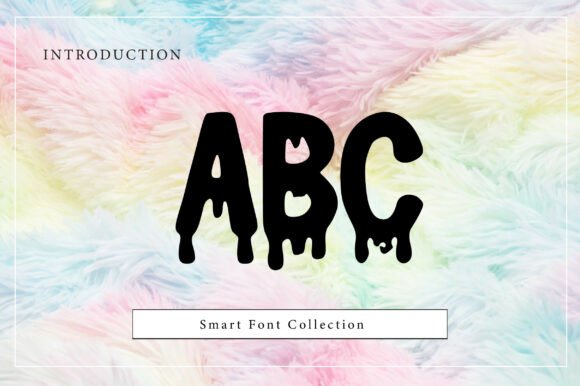
Unleash the Power of Driping Paint Font: Elevate Your Designs with a Raw, Liquid Energy
Are you tired of using the same old fonts in your designs? Do you want to add a touch of edginess and creativity to your projects? Look no further than the Driping Paint font, a bold and artistic display typeface from the Smart Font Collection. This font is designed to capture the realistic aesthetic of wet, running ink or thick street-art paint, making it perfect for designers and crafters who want to add a raw, liquid energy to their work.
The Perfect Match for Edgy Designs
The Driping Paint font is a perfect match for edgy streetwear, horror movie posters, and high-energy music event graphics. Its heavy, saturated letterforms provide an instant “street” feel that is both gritty and visually arresting. The font’s gravity-defying drips make it a go-to choice for Halloween-themed designs, urban apparel branding, and experimental digital art.
Adding a Layer of Chaos and Creativity
The Driping Paint font is designed to add a layer of chaos and creativity to your headlines, ensuring that your message is felt as much as it is read. Its tactile, handcrafted intensity makes it perfect for projects that need a bold and eye-catching font. Whether you’re designing a poster, a flyer, or a social media graphic, the Driping Paint font is sure to grab attention and leave a lasting impression.
Pairing Well with Dark, Textured Backgrounds
The Driping Paint font pairs exceptionally well with dark, textured backgrounds and neon accent colors for a truly immersive visual experience. This combination creates a bold and eye-catching design that’s perfect for designers and crafters who want to add a touch of edginess to their work.
The Driping Paint font is perfect for designers and crafters who want to add a raw, liquid energy to their work. Its versatility makes it suitable for a wide range of projects, from urban apparel branding to experimental digital art. Whether you’re a professional designer or a crafter, the Driping Paint font is a great addition to your font collection.
Key Features of the Driping Paint Font
- Bold and Artistic: The Driping Paint font is a bold and artistic display typeface that’s perfect for designers and crafters who want to add a touch of edginess to their work.
- Realistic Aesthetic: The font captures the realistic aesthetic of wet, running ink or thick street-art paint, making it perfect for edgy streetwear, horror movie posters, and high-energy music event graphics.
- Heavy, Saturated Letterforms: The font’s heavy, saturated letterforms provide an instant “street” feel that is both gritty and visually arresting.
- Gravity-Defying Drips: The font’s gravity-defying drips make it a go-to choice for Halloween-themed designs, urban apparel branding, and experimental digital art.
- Tactile, Handcrafted Intensity: The font’s tactile, handcrafted intensity makes it perfect for projects that need a bold and eye-catching font.
Tips for Using the Driping Paint Font
- Use it for Headlines: The Driping Paint font is perfect for headlines, as it adds a layer of chaos and creativity to your text.
- Pair it with Dark, Textured Backgrounds: The font pairs exceptionally well with dark, textured backgrounds and neon accent colors for a truly immersive visual experience.
- Experiment with Different Colors: Don’t be afraid to experiment with different colors and textures to add a unique touch to your designs.
- Use it for Edgy Designs: The Driping Paint font is perfect for edgy streetwear, horror movie posters, and high-energy music event graphics.
The Driping Paint font is a bold and artistic display typeface that’s perfect for designers and crafters who want to add a raw, liquid energy to their work. Its versatility makes it suitable for a wide range of projects, from urban apparel branding to experimental digital art. With its heavy, saturated letterforms, gravity-defying drips, and tactile, handcrafted intensity, the Driping Paint font is a great addition to any font collection.